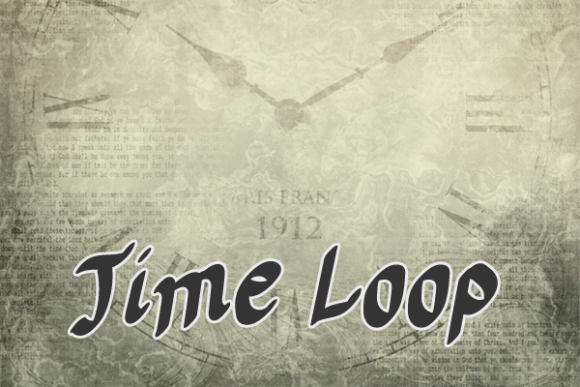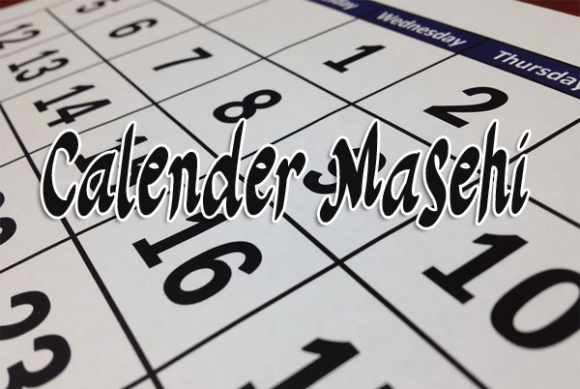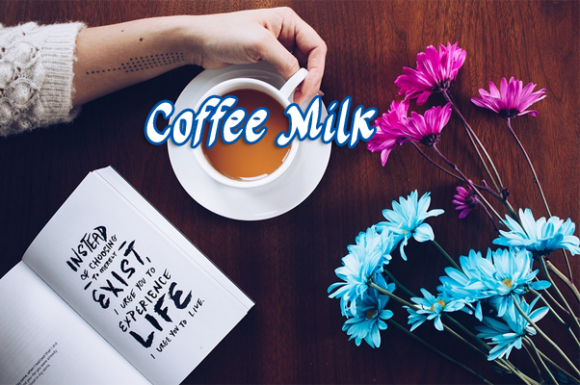
Introduction to Marginal Font
Marginal is a stylish and elegant handwritten font.
It looks stunning on wedding invitations, thank you cards, quotes, greeting cards, logos, business cards, and more .
Key Features of Marginal Font
Why Choose Marginal Font?